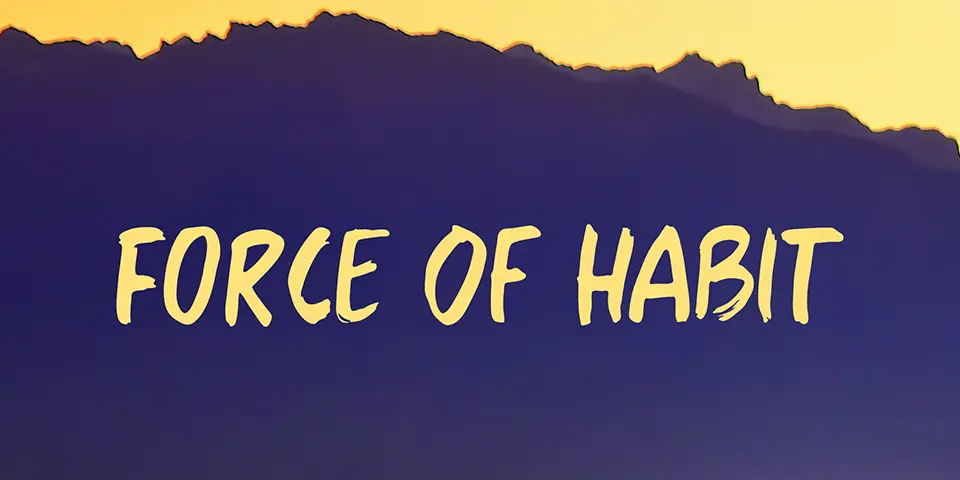
Force Of Habit Font Family
Force Of Habit Font Family is an artistic brush typeface designed by David Kerkhoff and published by Kitchen Table Type Foundry. The font features two distinct styles, crafted with a natural, handwritten aesthetic that evokes the feeling of casual yet deliberate strokes. It was created with a borrowed pencil and carries the warmth of a morning coffee ritual. This typeface is perfect for projects requiring a personal, authentic touch. While available as a demo font for personal use, commercial applications require proper licensing. The font’s versatile nature makes it suitable for various creative projects where a handcrafted feel is desired.